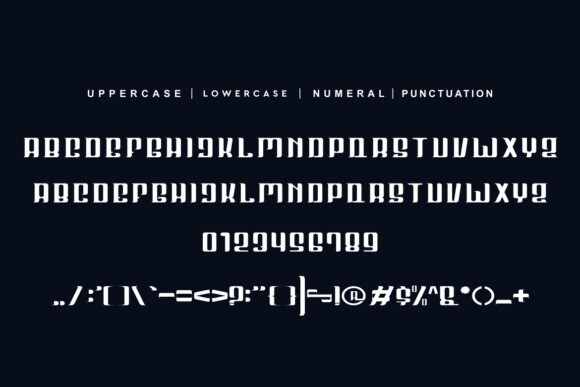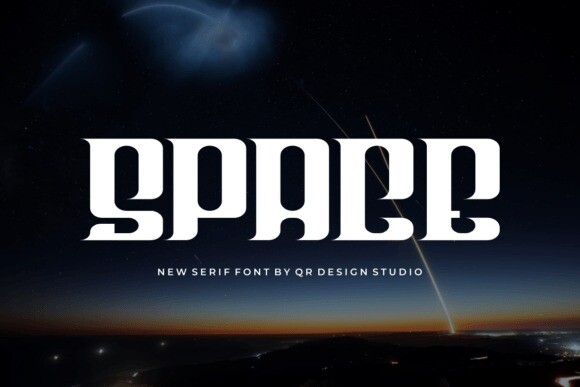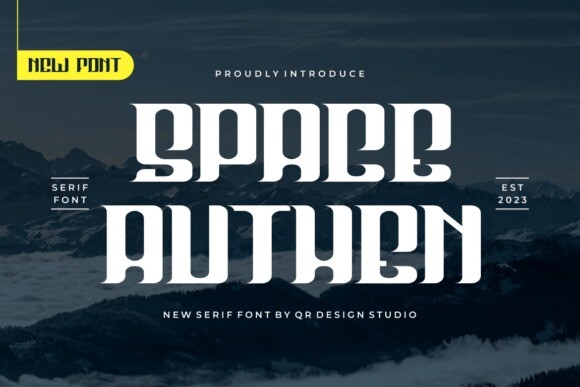
Space Authen Font
Space Authen Font is a bold and assertive serif font. No matter the topic, this font will be an incredible asset to your fonts’ library, as it has the potential to elevate any creation.